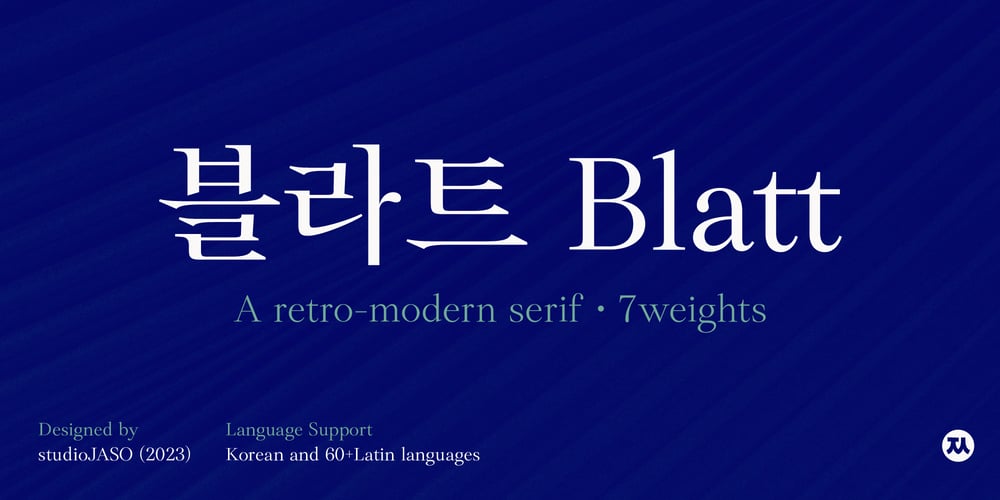
Blatt
Blatt font
Blatt Font Family was designed by StudioJASO and published by StudioJASO. Blatt contains 7 styles and family package options. Blatt is a retro-modern font which features downtoned strokes of writing brush, a writing instrument of Korean Serif font.The vertical/horizontal and high-contrast strokes as well as large graphemes complete the modern style of Blatt, with strokes finished off by the distinctive style of Latin Bracketed-Serif fonts.Blatt is a display font which looks ideal in big sizes (with details of each letter highlighted), while it remains legible in small sizes, too.